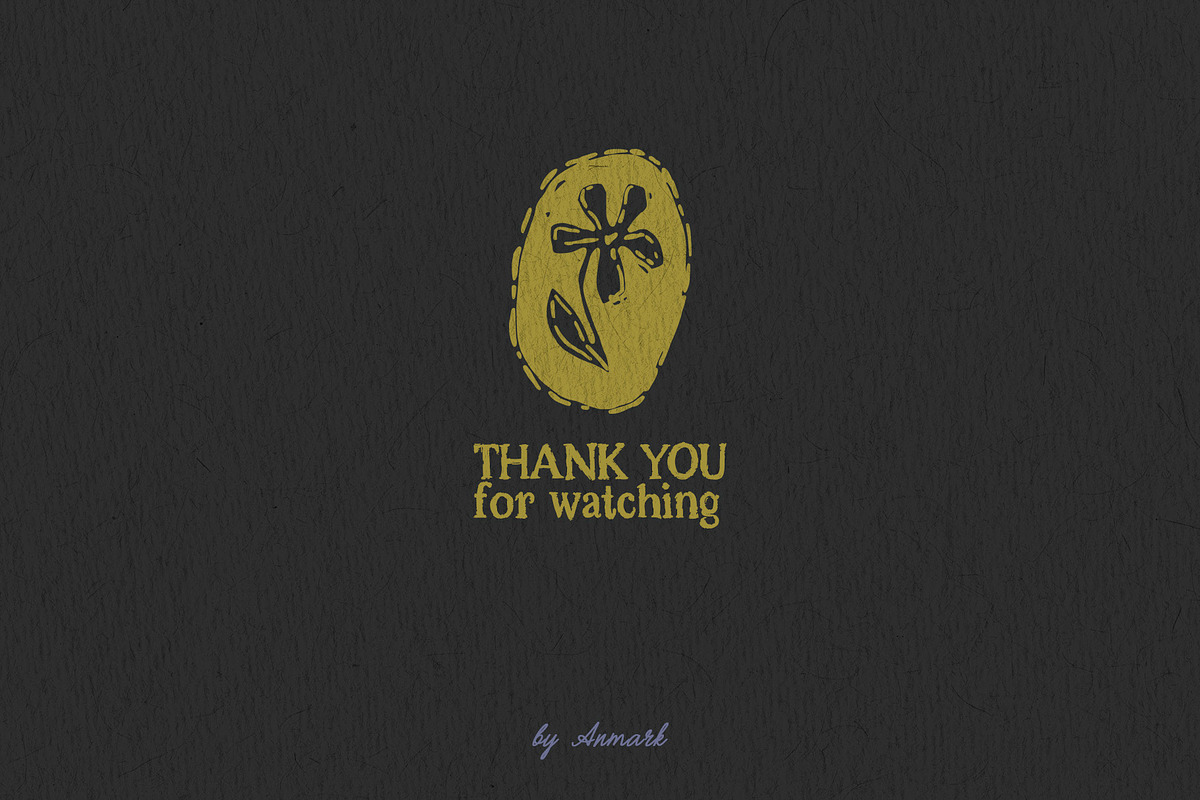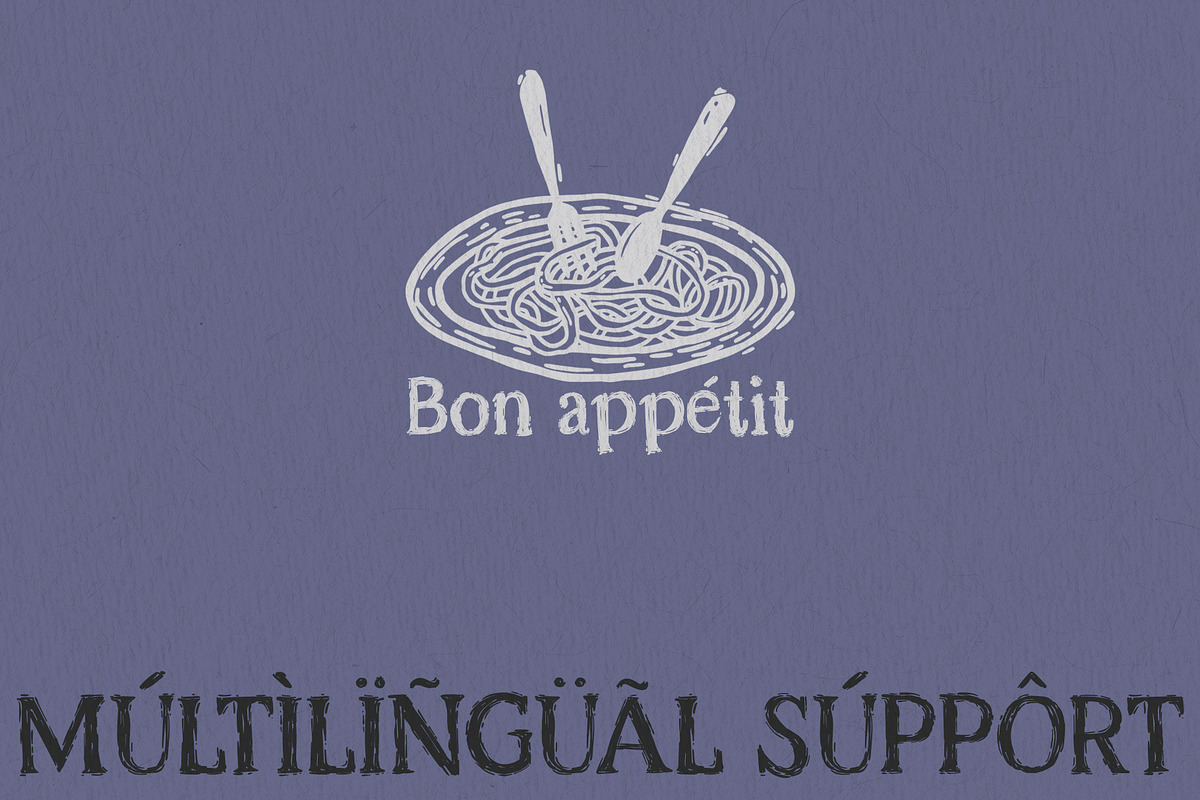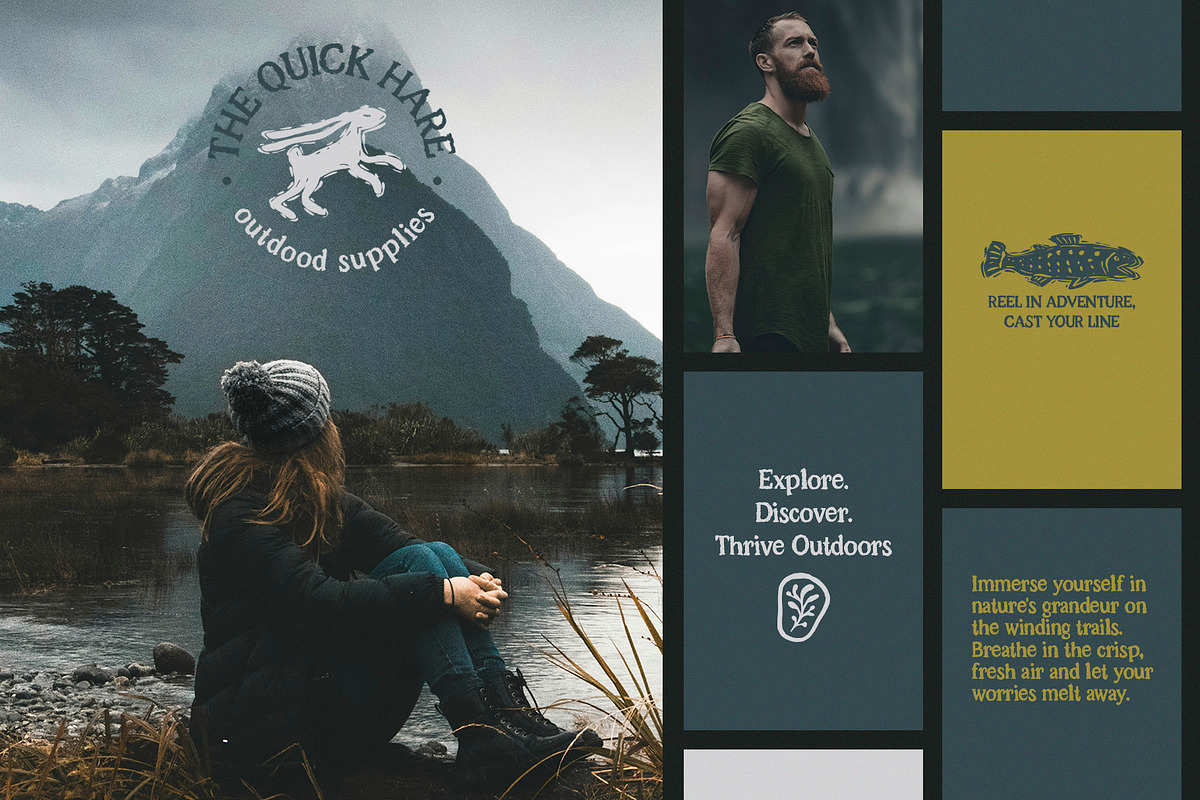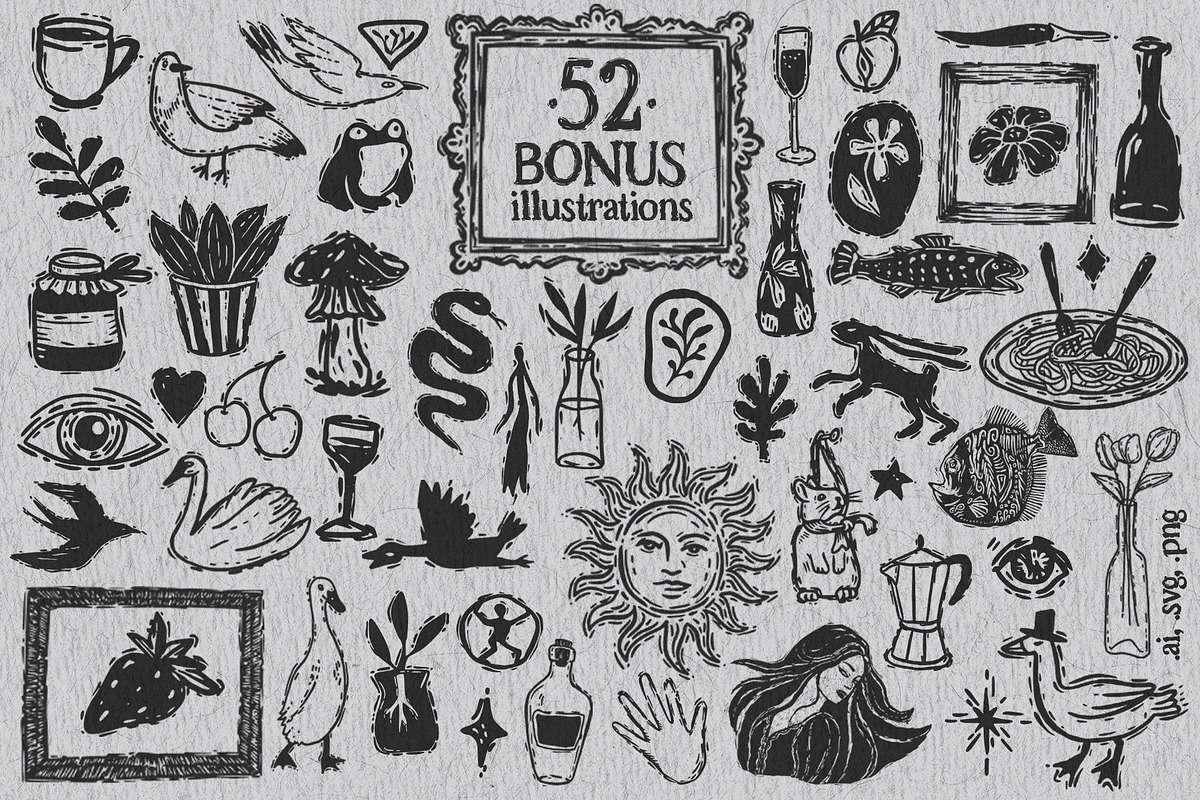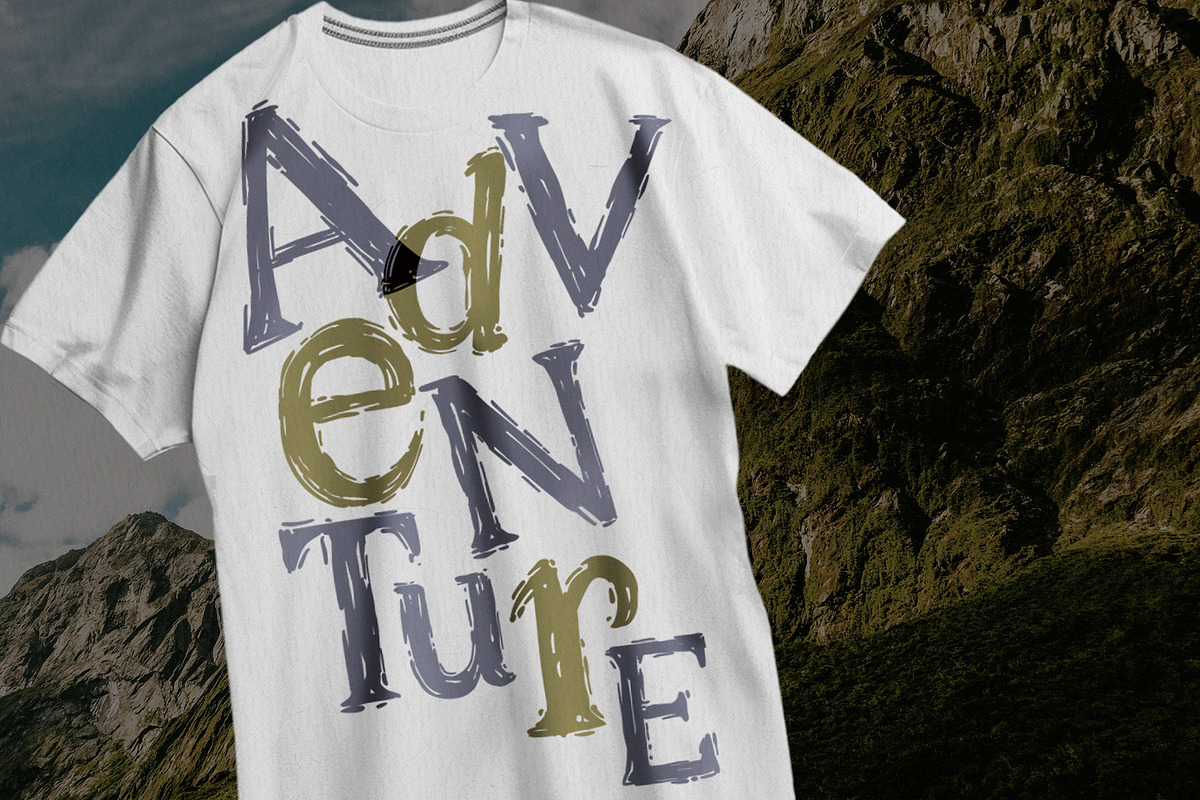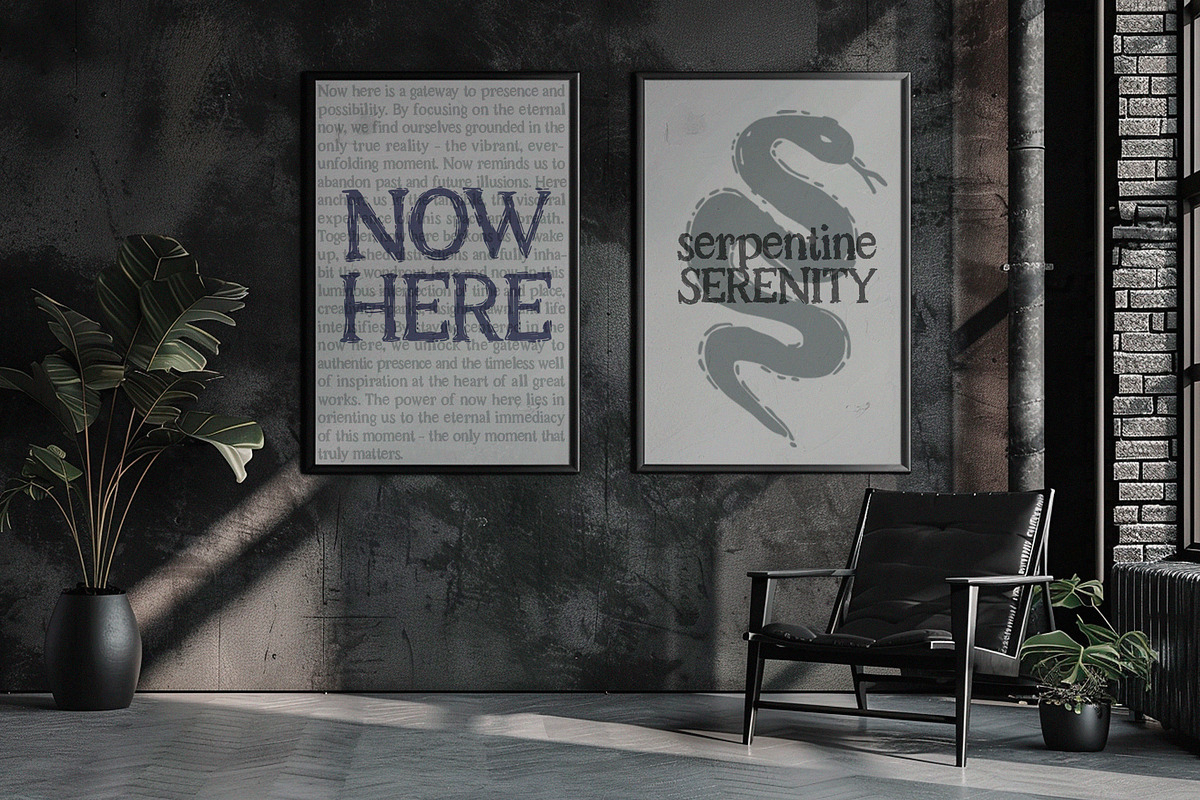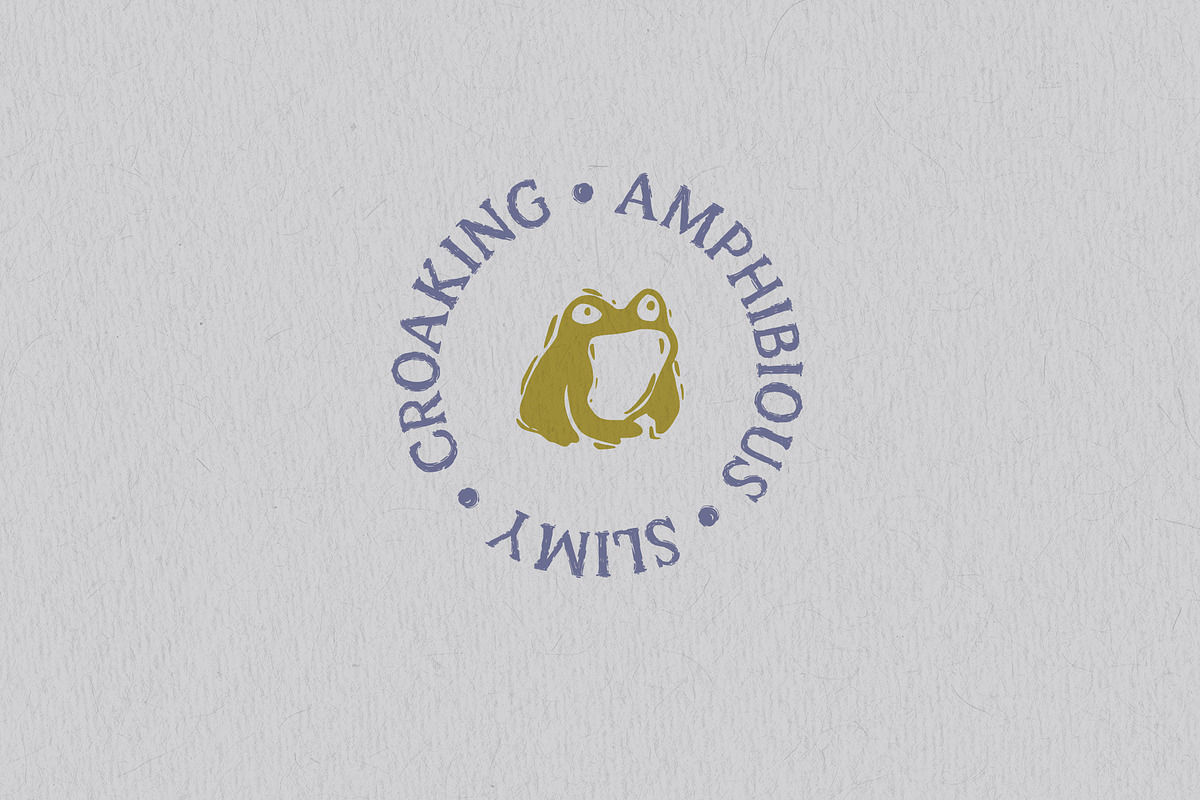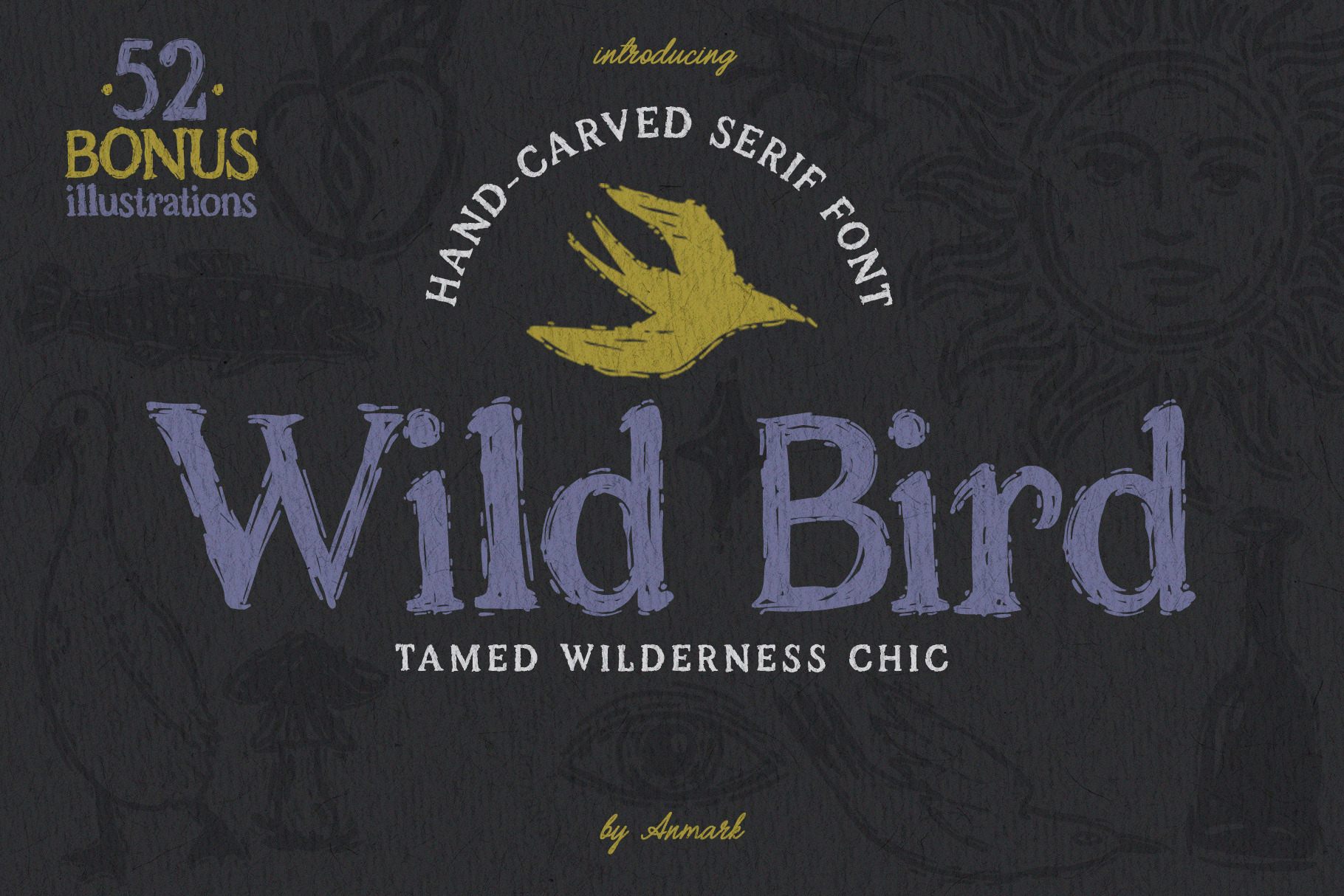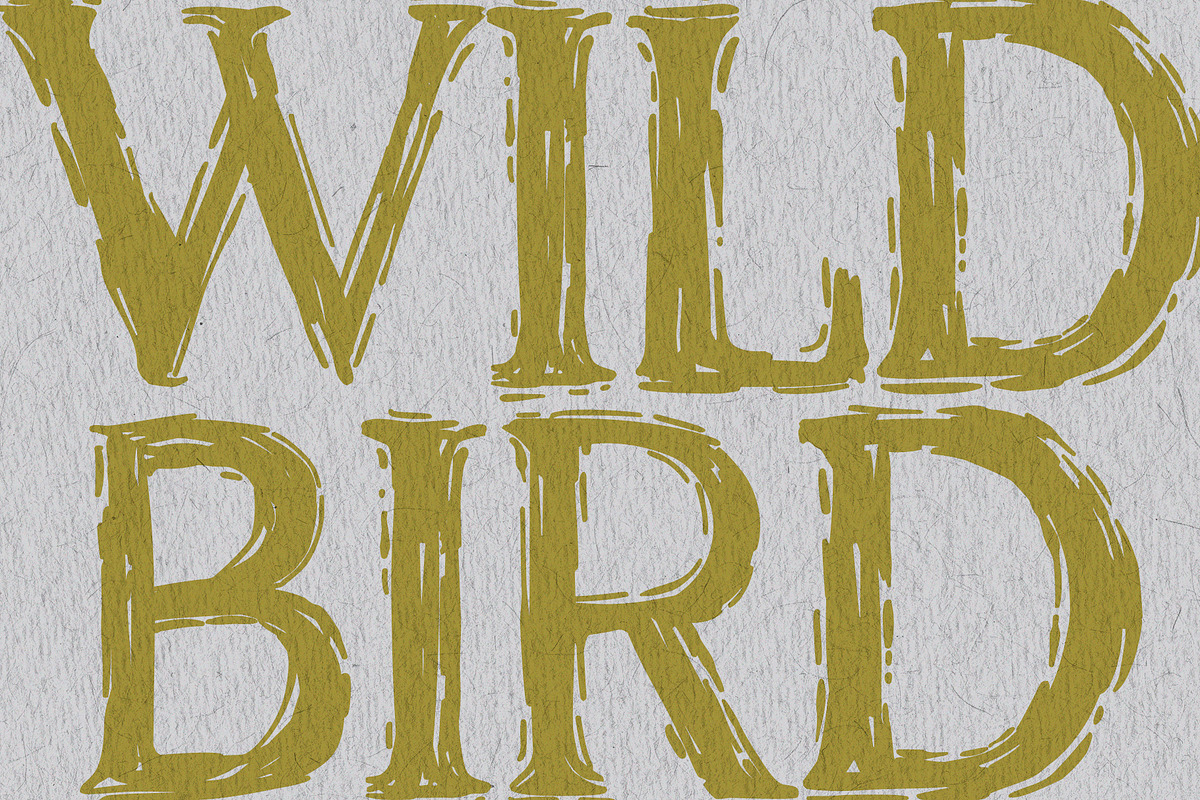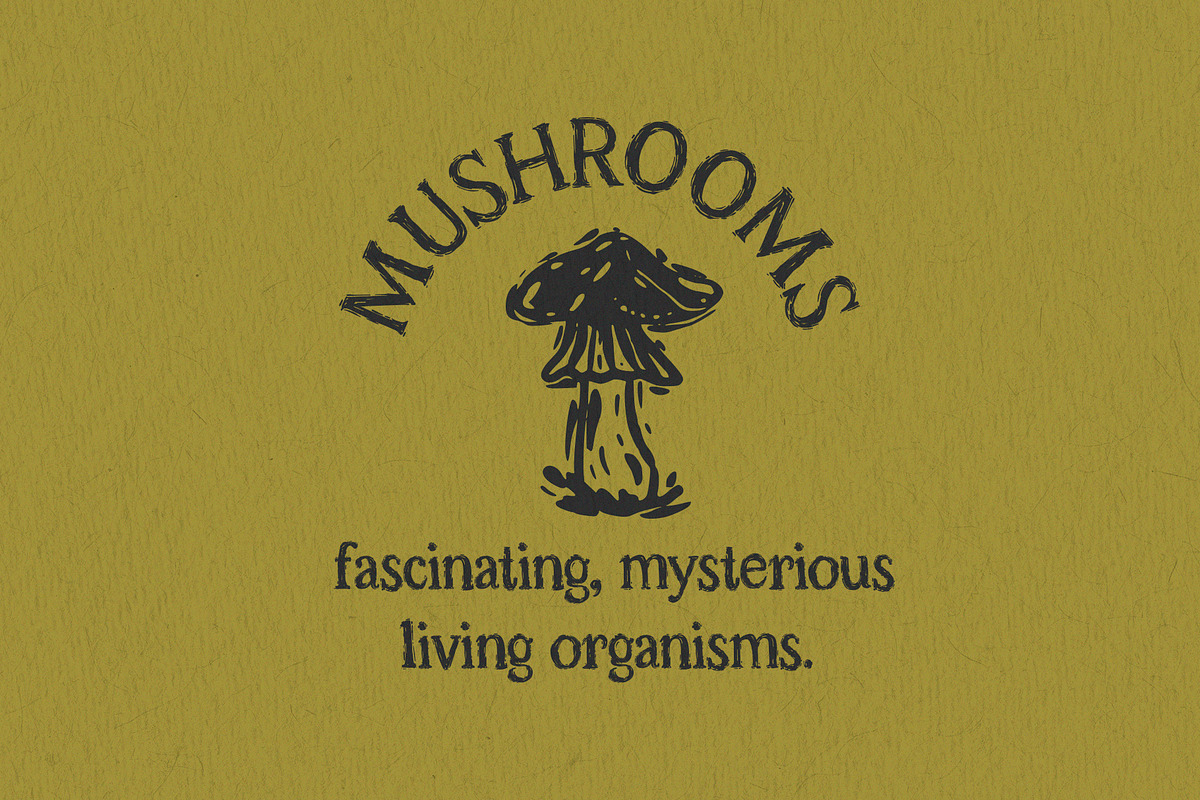
Wild Bird hand-carved serif font with a rugged, organic aesthetic, this versatile typeface captures the spirit of adventure and the beauty of the natural world.
Featuring a robust, yet graceful construction, Wild Bird's sturdy serifs and dynamic strokes lend an air of timeless elegance to any design. From rustic logo treatments to elegant editorial layouts, this font radiates an intrepid energy that transports the viewer to untamed landscapes and unbounded horizons.
As a bonus to the core font, this package includes a stunning collection of 52 hand-drawn illustrations. These complementary graphics seamlessly integrate with the Wild Bird typeface, empowering designers to craft captivating, adventure-inspired compositions with ease.
Wild Bird font also boast multilingual capabilities. They seamlessly support a variety of languages, including English, Spanish, French, German, Portuguese, and Italian. This makes the font an adaptable choice for a wide range of international projects and global audiences.
Whether you're designing outdoor gear, crafting an eco-conscious brand identity, or seeking to infuse your projects with a spirit of exploration, the Wild Bird font delivers an authentic, hand-forged aesthetic that resonates with the free-spirited soul. Unlock a world of typographic adventure with this versatile and visually striking serif font.